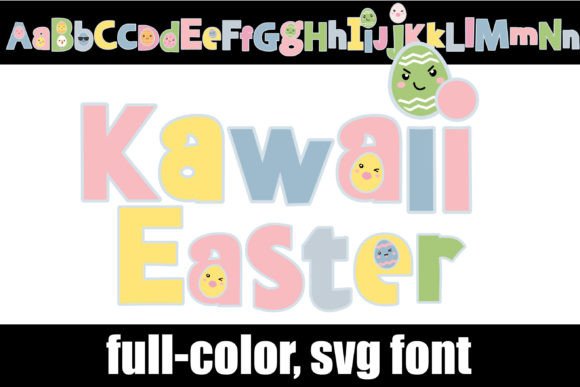
Behold, the Kawaii Easter Font - a vivacious explosion of colors and charming Easter-themed designs that will transform your creative projects into a lively, springtime extravaganza! This exclusive font family, meticulously crafted by the talented Illustration Ink, is the ultimate expression of Easter cheer, ready to enchant your designs with its vibrant hues and playful spirit.
Step into a world of Easter magic, where each letter is an art piece adorned with delicate pastel shades and delightful Easter motifs. The letters are more than mere characters; they are artistic wonders that bring the joys of Easter to life. Adorn your designs with eye-catching headlines that radiate springtime bliss, create festive Easter graphics that capture the essence of the season, or craft enchanting invitations that beckon loved ones to share in the Easter festivities.
Unleash your creativity and let your imagination run wild as you explore the enchanting possibilities of the Kawaii Easter Font. Its PUA encoding makes accessing the full spectrum of glyphs and swashes a breeze, empowering you to effortlessly incorporate a symphony of colors and intricate designs into your creations. Transform ordinary text into a visual masterpiece, where every word dances with Easter cheer and captivates the hearts of all who behold it.
Elevate your Easter designs to new heights of charm and delight with the Kawaii Easter Font. Embrace the magic of the season and let your creativity blossom with this extraordinary font family. Whether you're a seasoned designer or just starting your creative journey, the Kawaii Easter Font is your passport to a world of captivating designs that will leave a lasting impression on all who encounter them.